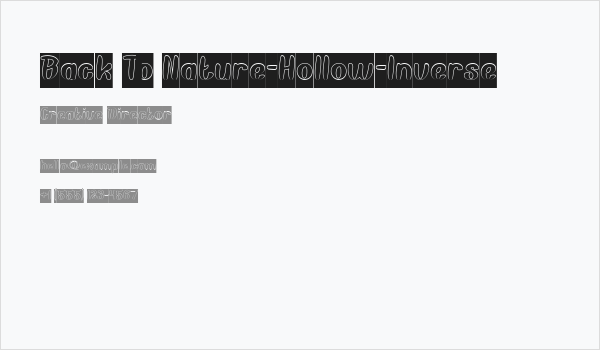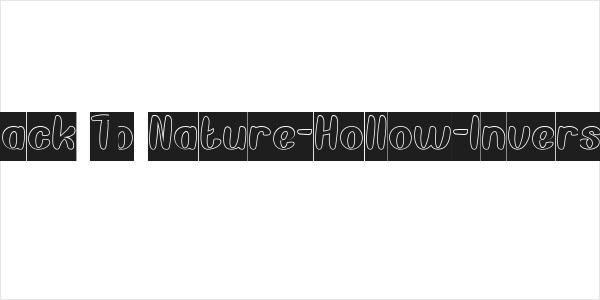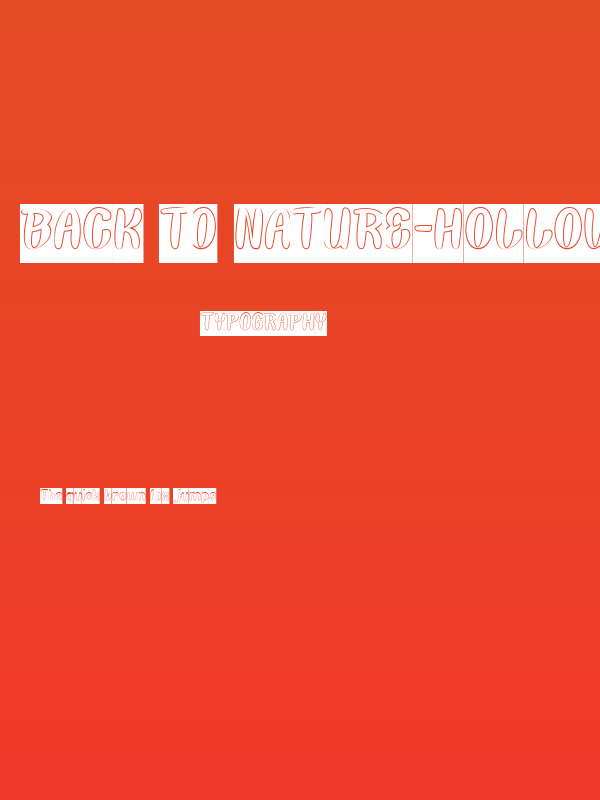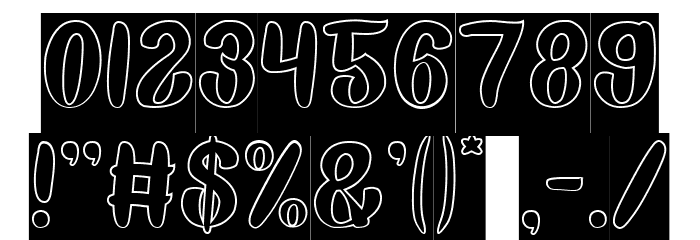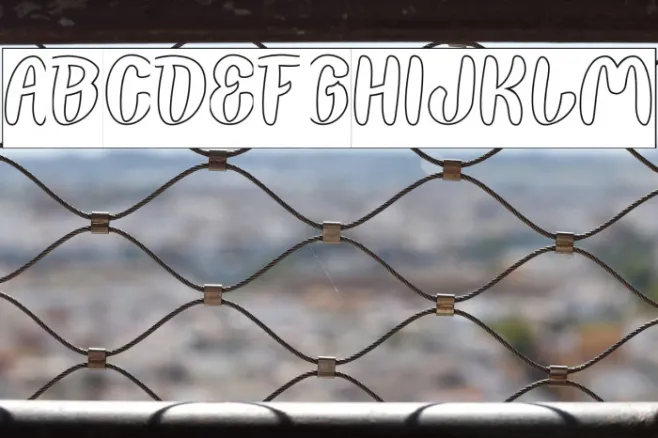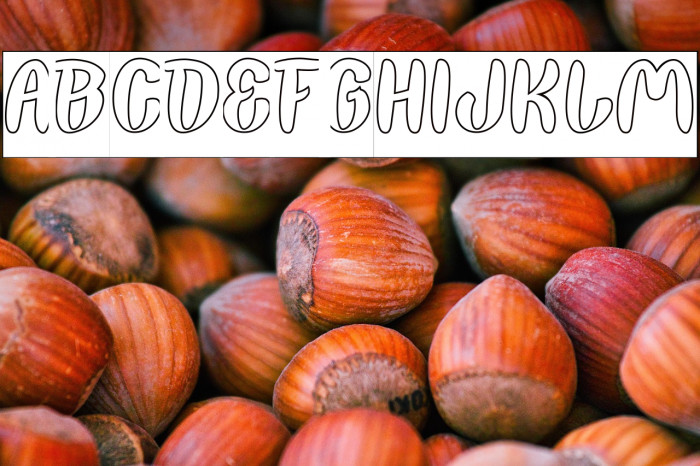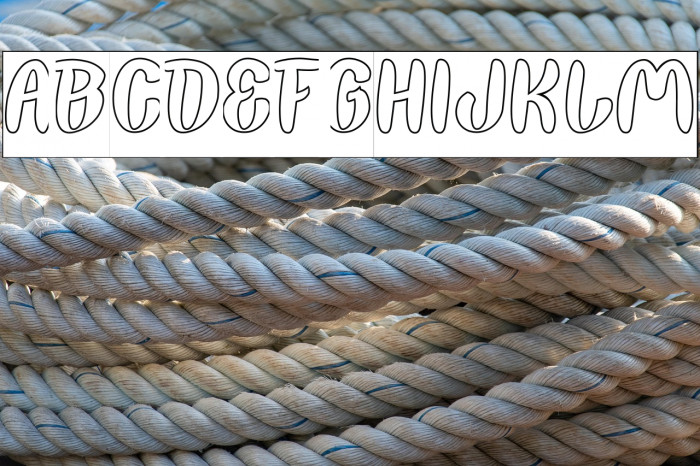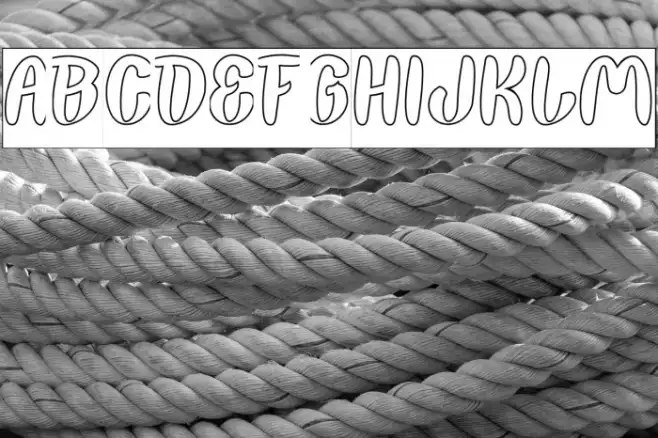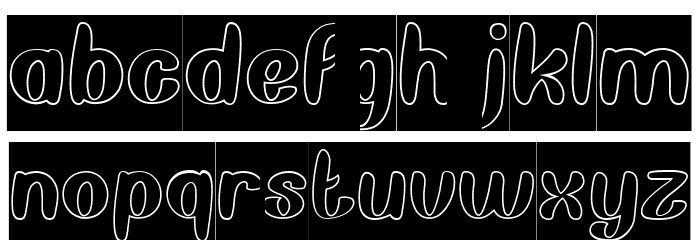
Back To Nature-Hollow-Inverse Font
Back To Nature-Hollow-Inverse Description
This font features a playful and whimsical design with hollow, inverse letterforms that create a unique and eye-catching appearance. The characters are rounded and bold, with a consistent stroke width that gives them a cohesive look. The uppercase and lowercase letters maintain a uniform style, while the numerals and special characters complement the overall aesthetic. Its distinct style makes it suitable for creative and informal projects, where a touch of fun and originality is desired.
| Overall Style | Playful and Whimsical |
| Proposed Projects | Ideal for children's books, playful branding, posters, and creative invitations. |